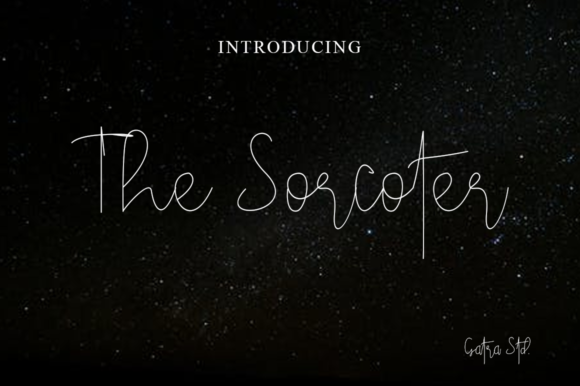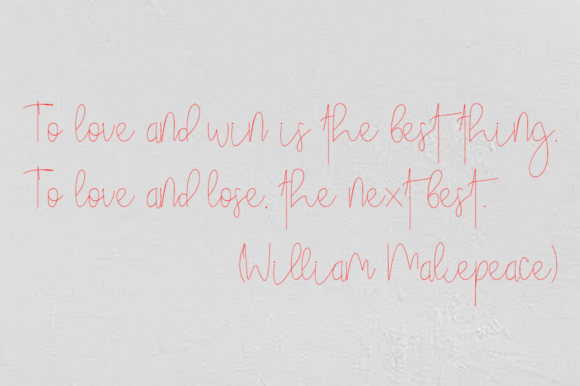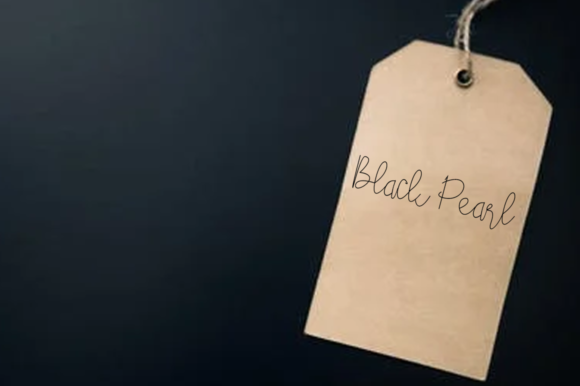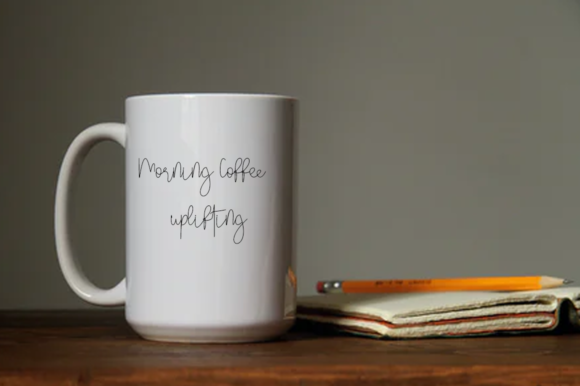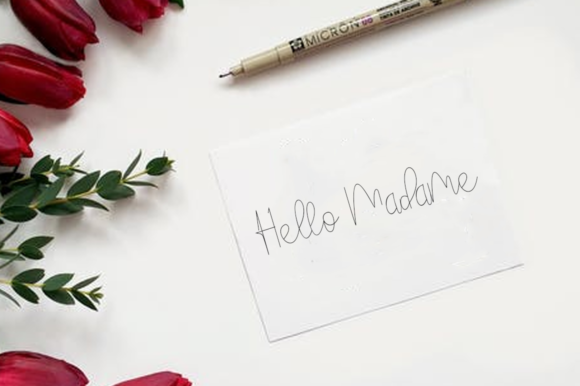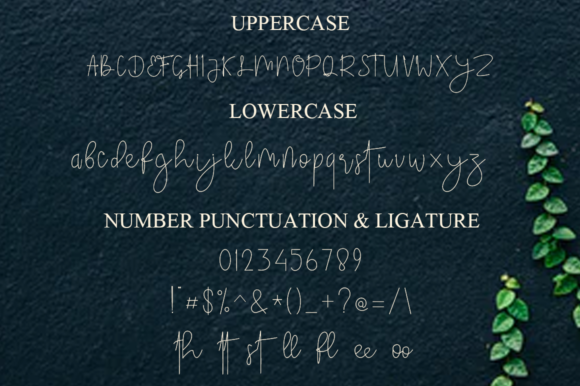
The Sorcoter Signature Font
About The Sorcoter Signature Font
The Sorcoter is a stylish and delicate script font. It has a clean, thin and smooth vibe and it will be a hit for any design that you want to add it to.